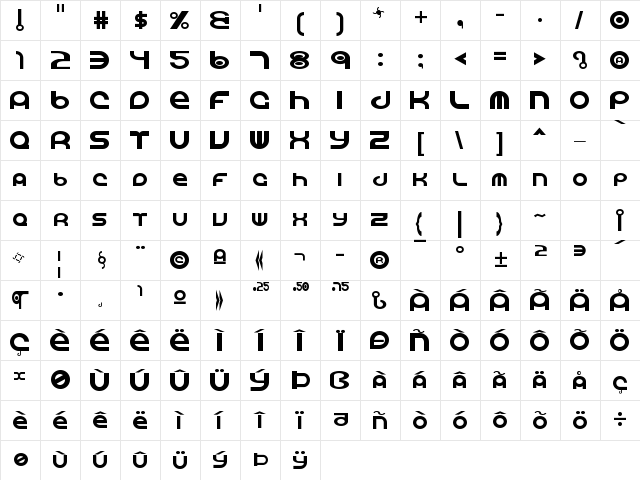
Vocaloid Regular Font Preview
Vocaloid Regular
Vocaloid Regular Font Details
| Foundry | Megami Studios |
| Designer | Rob Barba |
Design Context for Vocaloid Typeface
Vocaloid is a composed and adaptable typeface that performs quietly and consistently across a wide range of design contexts.